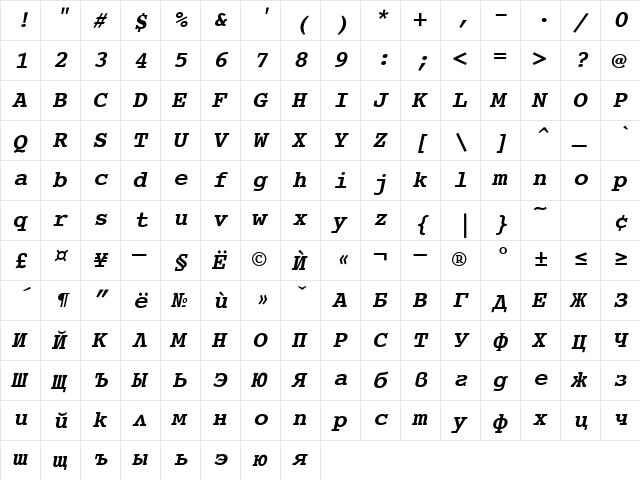
CourierET Bold Oblique
Design Context for CourierET Typeface
CourierET uses fixed-width spacing throughout, giving it the structured, systematic character associated with coding environments and technical documentation. The dynamic lean of this cut emphasises speed and emphasis in any layout. The heavy weight commands attention and anchors typographic hierarchies.
Pro Tip: Pair CourierET with a proportional sans for UI contexts where code-style labels and regular body copy need to coexist.